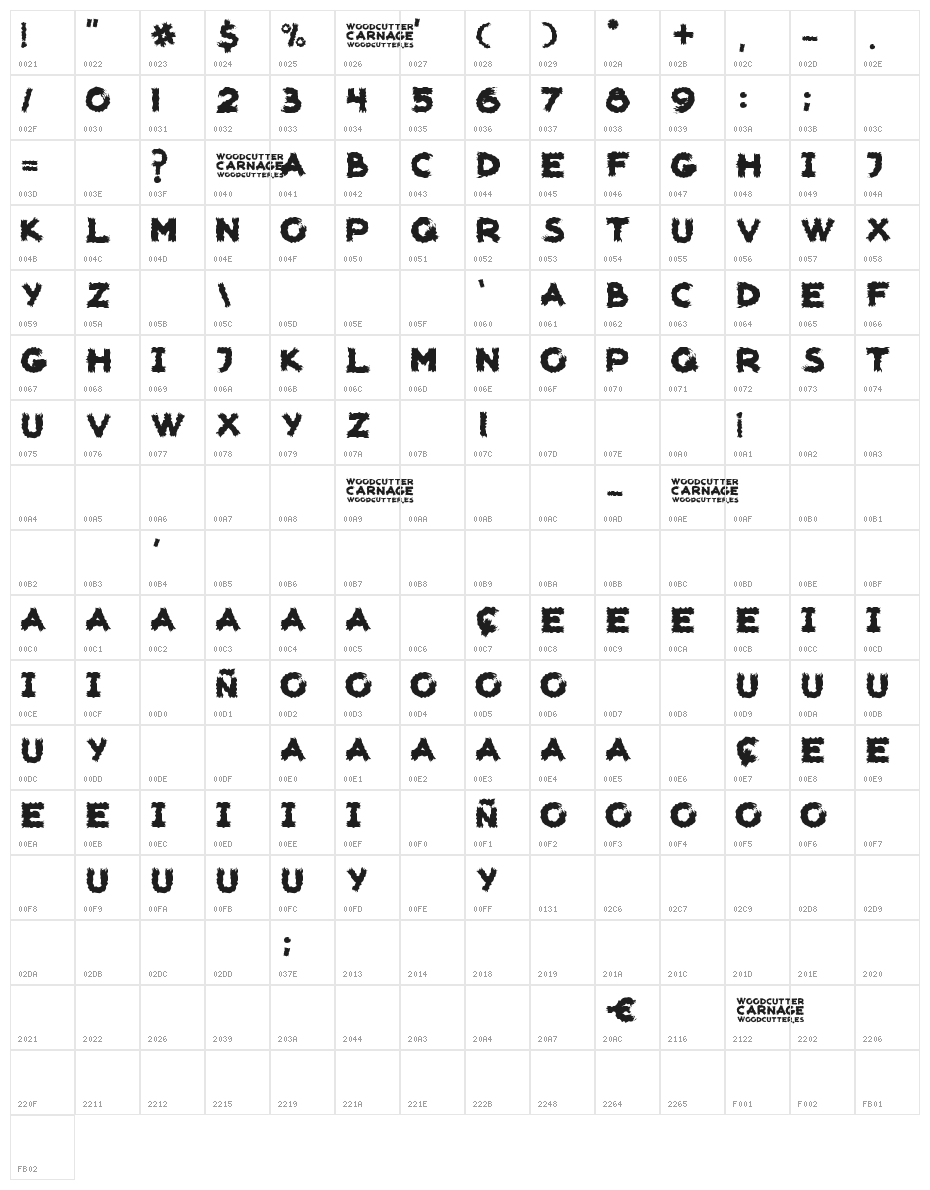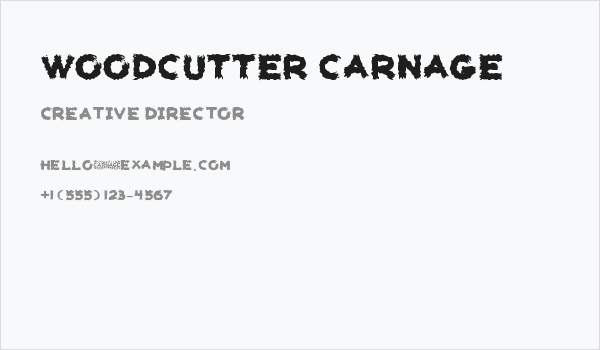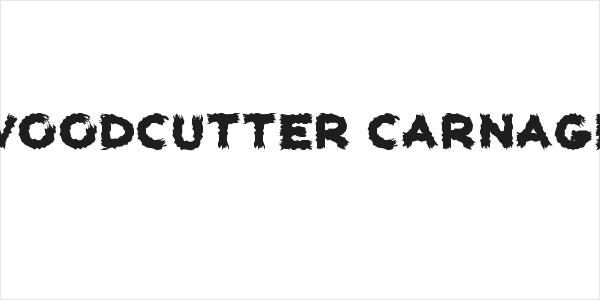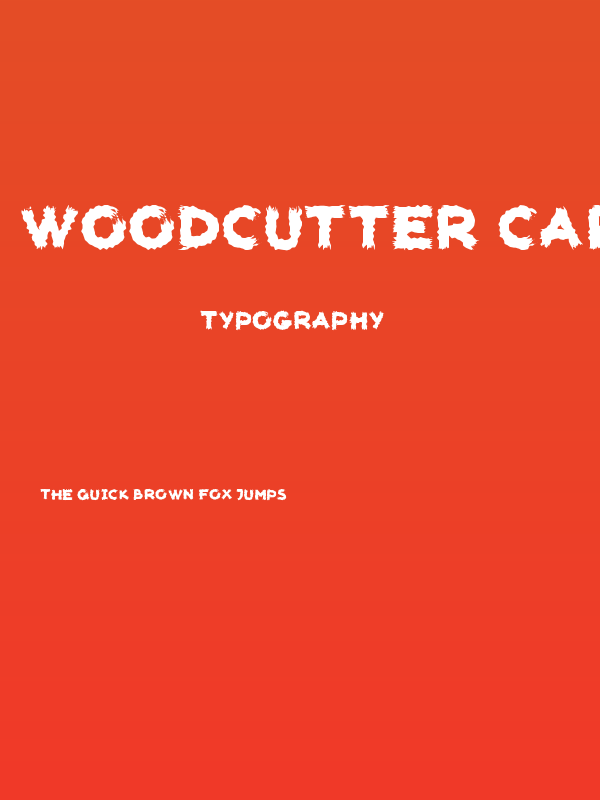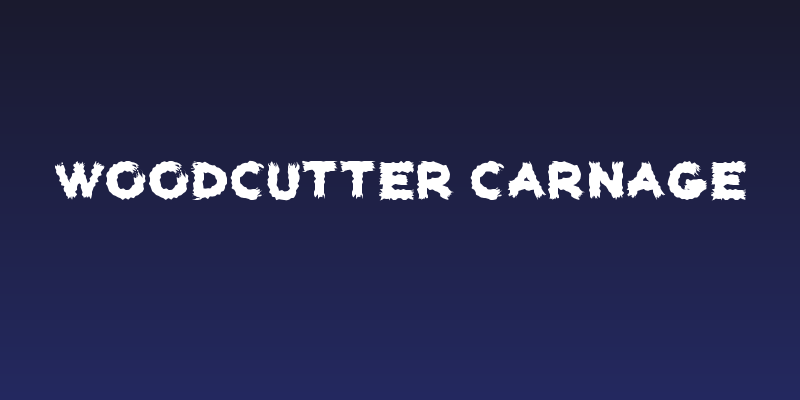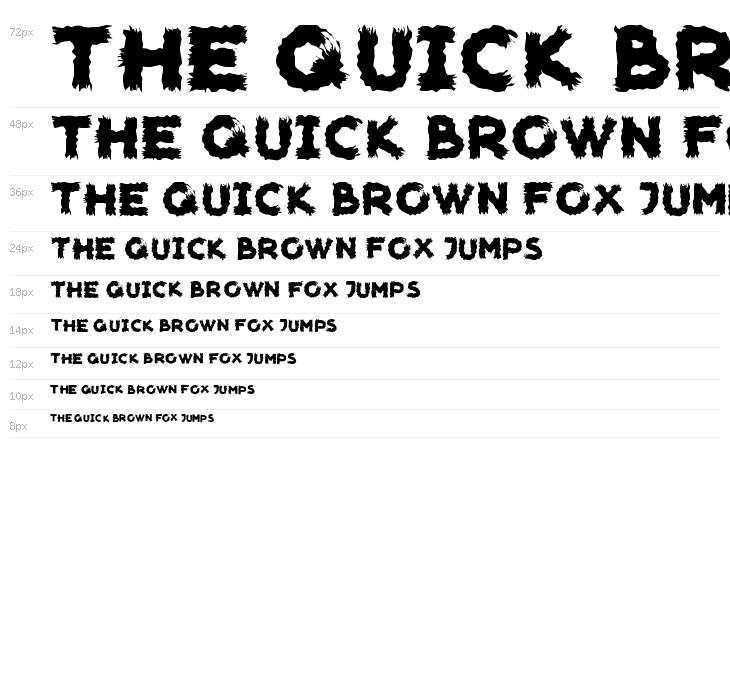
woodcutter carnage Font
woodcutter carnage Description
This font features a bold and aggressive style with jagged, rough edges that give it a chaotic and intense appearance. The characters are designed to look as if they have been torn or shredded, creating a sense of movement and energy. The uppercase and lowercase letters maintain a consistent style, with each character exhibiting unique cuts and slashes that enhance the overall rugged aesthetic. Numbers and special characters follow the same design principles, ensuring a cohesive look across all elements. This font is perfect for projects that require a dramatic and impactful visual presence.
| Proposed Projects | Ideal for horror-themed posters, edgy album covers, or any project needing a dramatic and intense visual impact. |